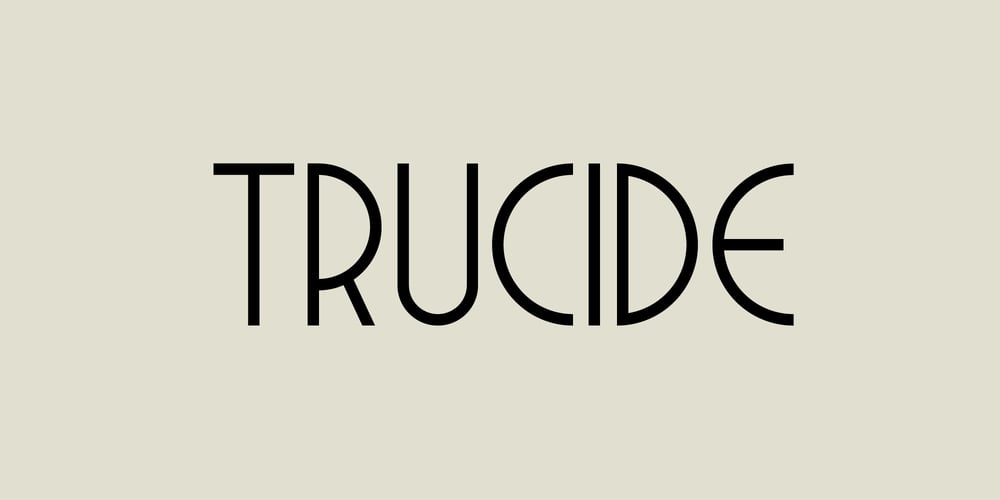
Trucide
Trucide font
Trucide Font Family was designed by Volodymyr Berla and published by VladB. Trucide contains 12 styles and family package options. Trucide is a modern narrow sans serif geometric font, includes upper and lower case characters, Latin, Cyrillic, Latin Eastern Europe, Turkish, Baltic and other.The Trucide family consists of 12 fonts, divided into 3 subgroups (according to the type of style – St, Rg, Cut), and have the 4 types of thickness in each subgroup.Trucide fonts will be useful in developing a brand, creating posters and other graphic products, and for word processing.